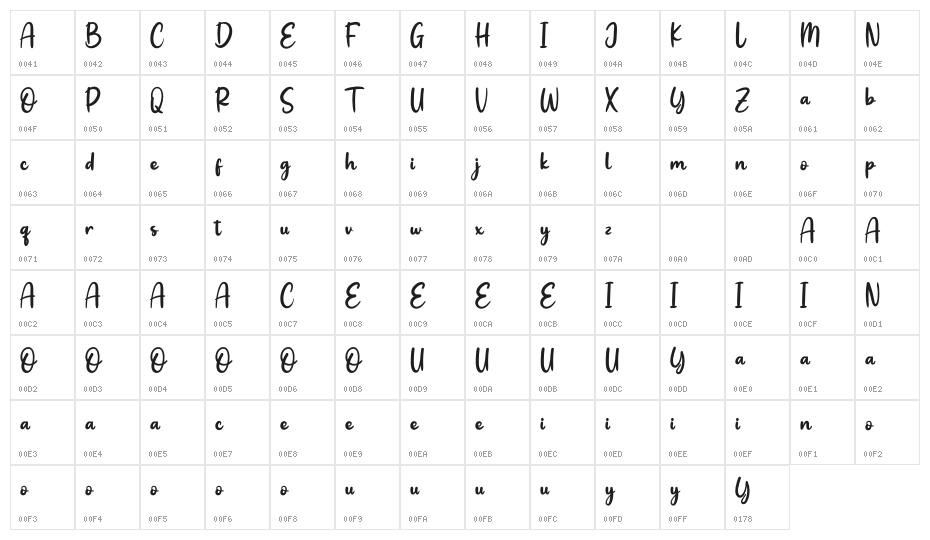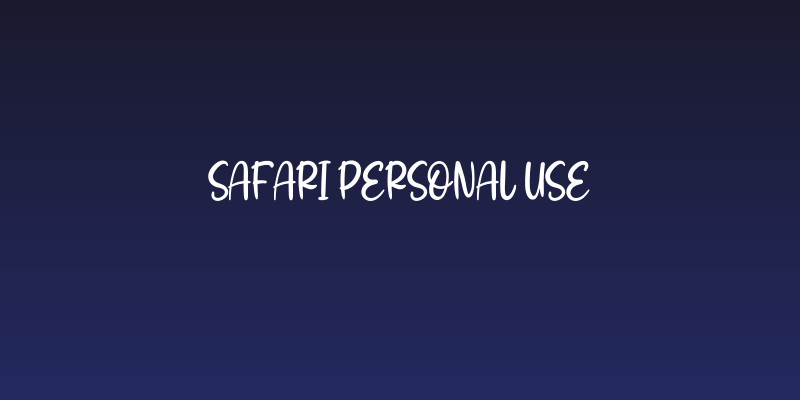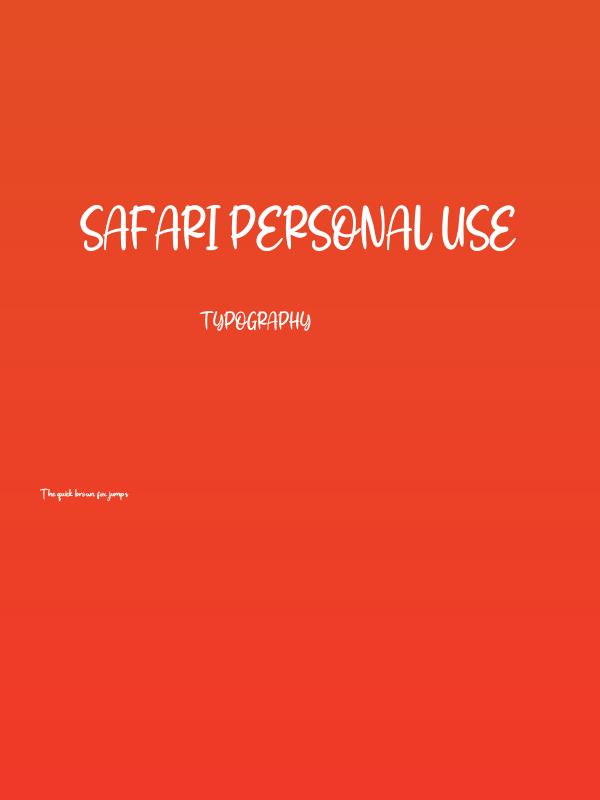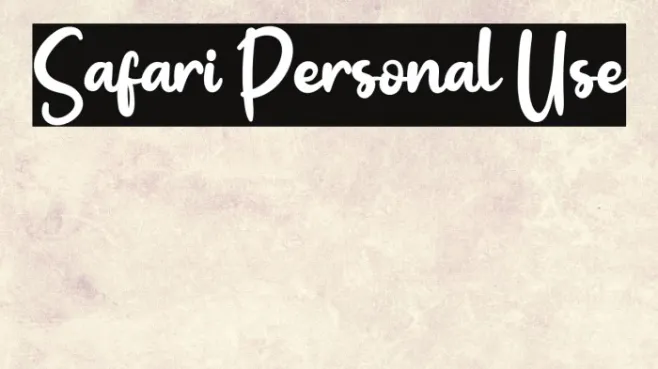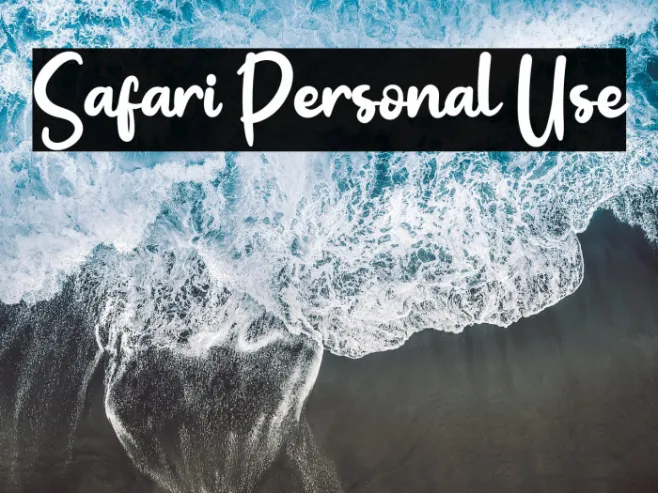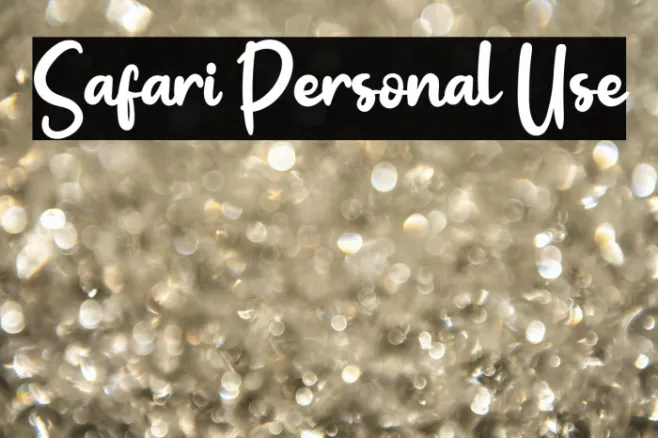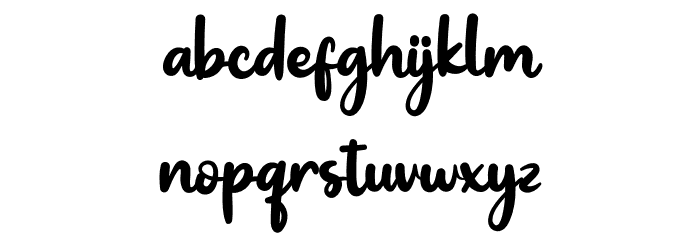
Safari Personal Use Font
This font features a playful and casual handwritten style, characterized by its smooth, flowing curves and slightly irregular letterforms. The uppercase letters are bold and prominent, while the lowercase letters maintain a consistent flow, enhancing the font's informal and friendly appearance. The strokes are moderately thick, providing a medium contrast that ensures readability while maintaining a relaxed aesthetic. The font's overall style is modern and approachable, making it suitable for a variety of creative projects. The spacing between characters is normal, allowing for clear legibility without feeling cramped.
| Proposed Projects | Ideal for greeting cards, invitations, social media graphics, and branding projects that require a personal touch. |